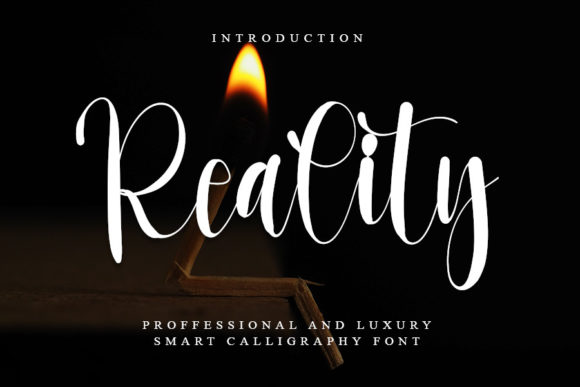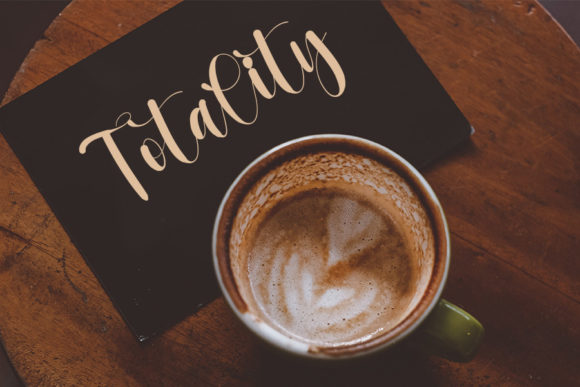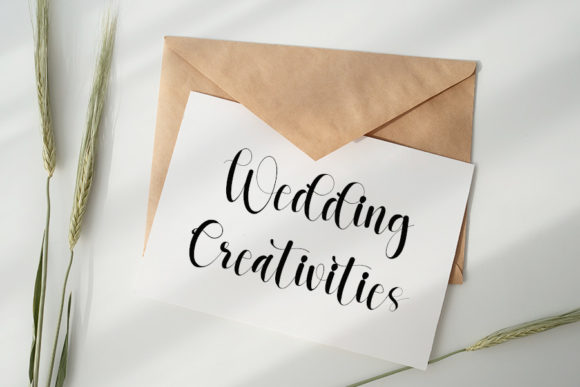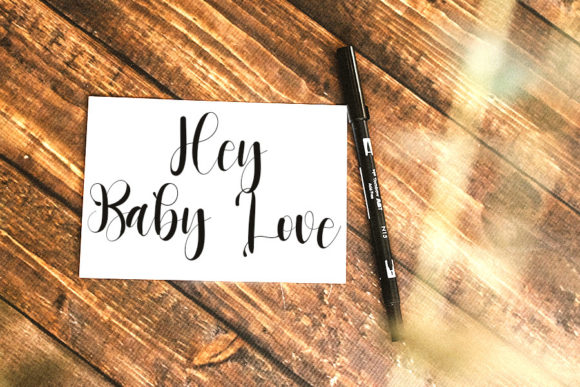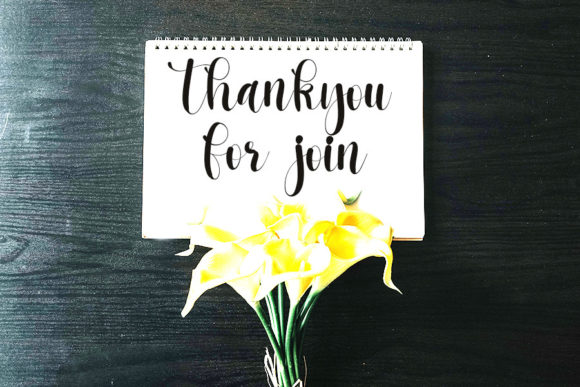
About Reality Font
Reality is a chic and refined script font that exudes sophistication and elegance. With its stylish alternates and ligatures, this font is the perfect match for a wide range of design projects.
The clean and graceful letterforms of Reality give it a sophisticated and modern look. The curves and swashes in the font add a touch of elegance and refinement, making it suitable for luxurious branding, high-end products, wedding invitations, and more.
The stylish alternates and ligatures of Reality allow you to create unique and custom lettering combinations. These special characters add versatility and creative possibilities to your designs, making them stand out and capture attention.
Whether you’re designing a logo, a social media post, a packaging label, or any other project, Reality brings a sense of class and sophistication. It elevates your design with its sleek and well-crafted letterforms, giving it a professional and polished appearance.
The legibility of Reality ensures that your message is clear and easily understood. Each character is carefully designed to maintain readability while retaining its elegant style. This makes it suitable for various applications, from printed materials to digital designs.
Reality is a versatile font that can adapt to different design styles and themes. It complements both modern and classic aesthetics, allowing you to create a cohesive and visually appealing look across your projects.
In conclusion, Reality is a chic and refined script font that adds sophistication and elegance to your designs. With its stylish alternates and ligatures, it offers versatility and creative possibilities. Whether you’re working on branding, invitations, or any other project, Reality brings a touch of class and style.